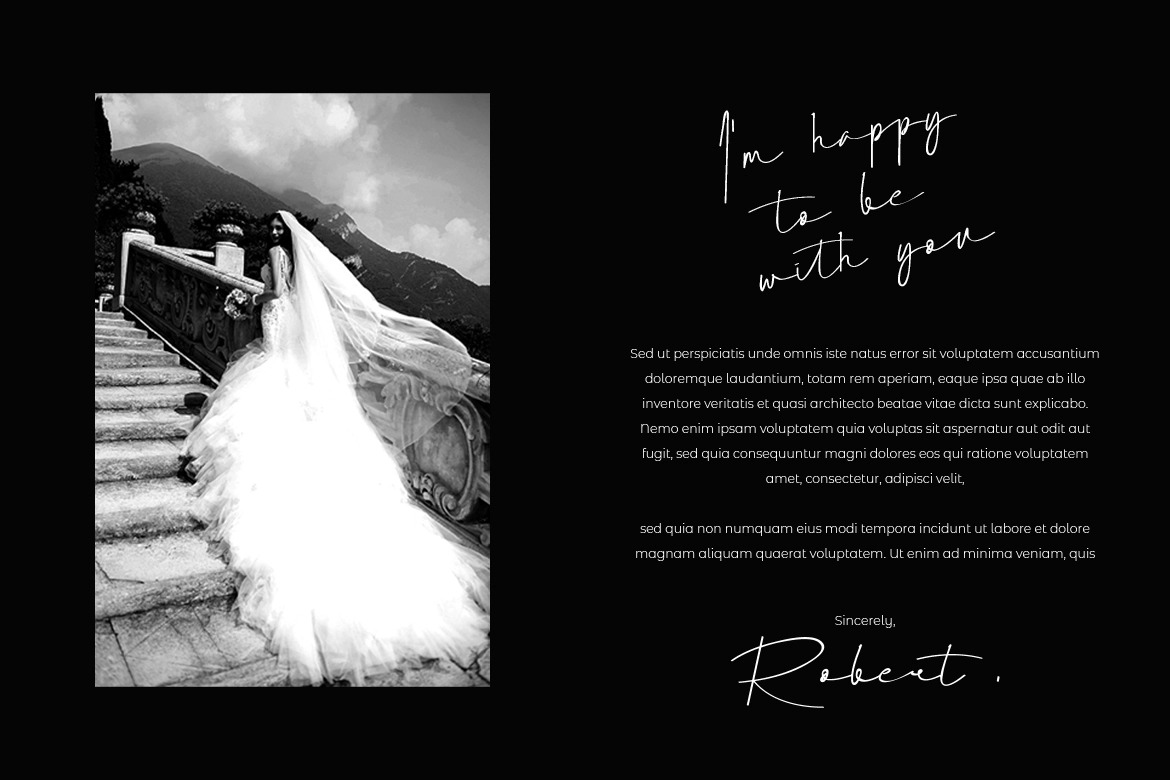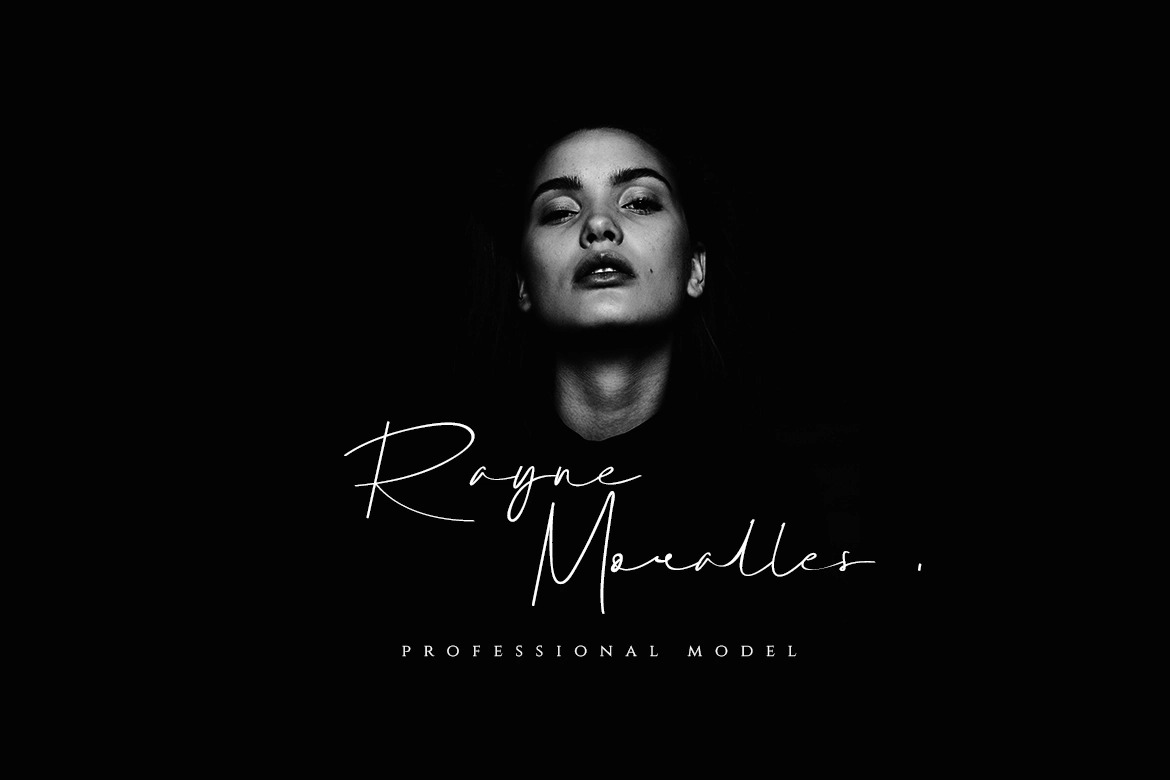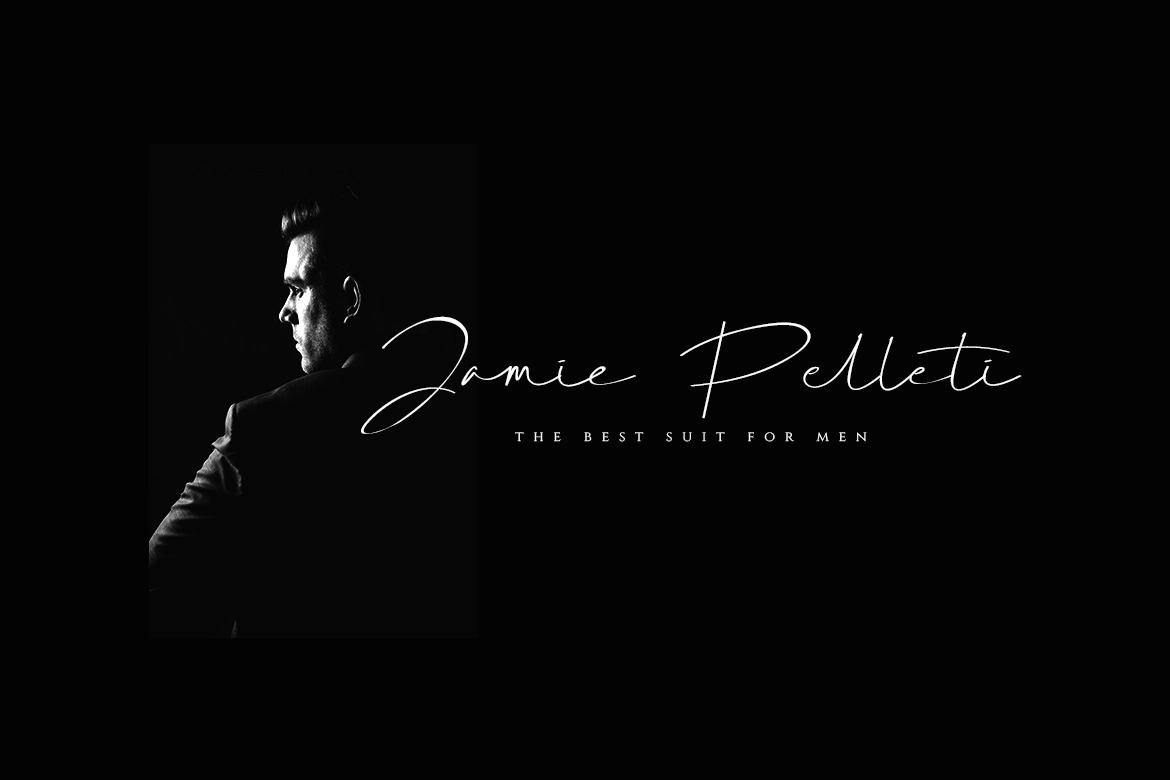
Relagon Font
Relagon Handwritten Font
It’s a signature Font created by jadatype with a handwritten and script style make this font looks elegant, natural, stylish and perfect for any awesome projects that need signature taste. Fall for its ravishing style and use it to create gorgeous designs. Relagon is PUA encoded which means you can access all of the glyphs and swashes with ease!